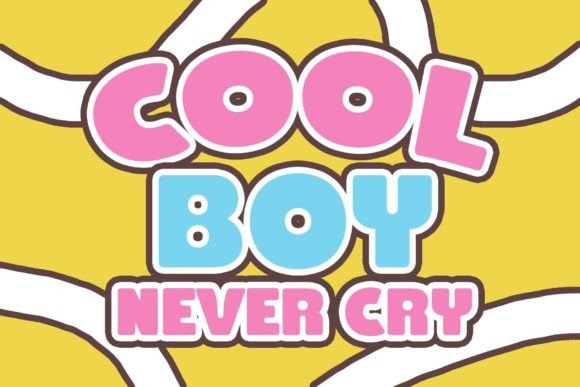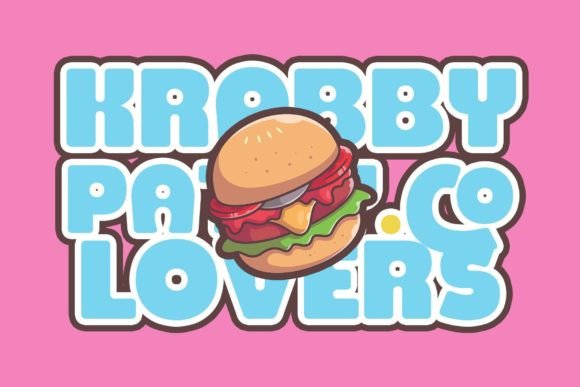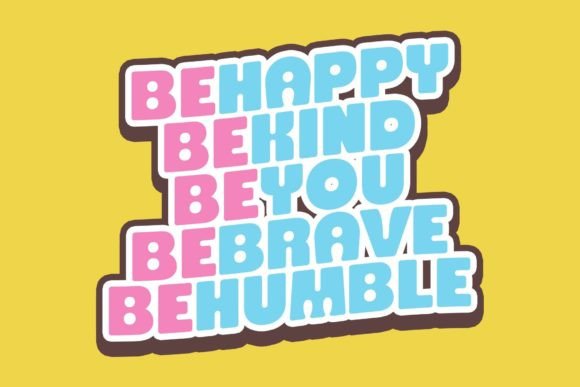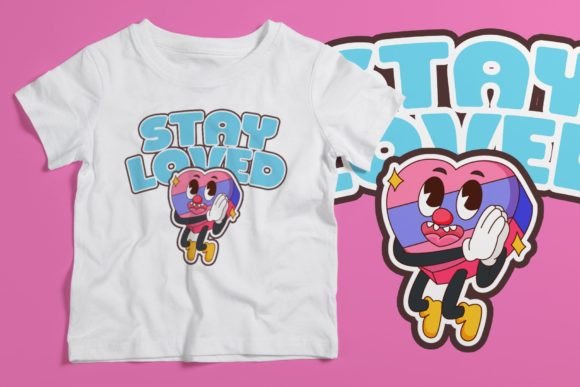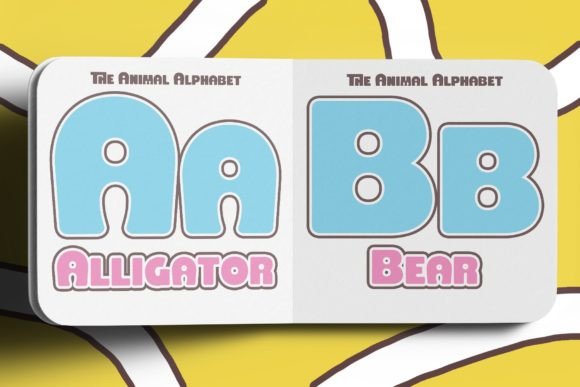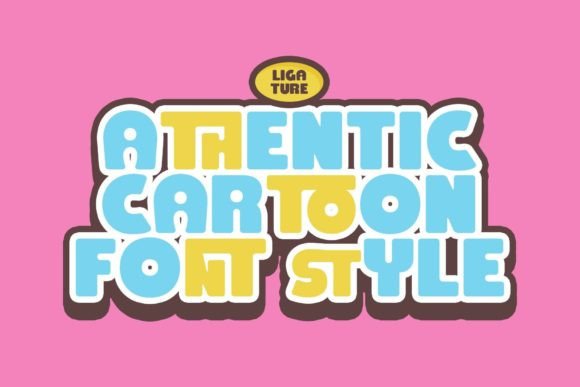
Introduction to Ragnic Font
Have you ever stared at a blank page, trying to come up with the perfect headline for your creative project, only to find yourself lost in a sea of font options? I know I have. But what if I told you that there’s a new font on the block that’s about to make your design life a whole lot easier?
Meet Ragnic Font, a playful and vibrant sans serif font that’s perfect for creating eye-catching headlines and logos. This versatile design resource is not only free to download but also comes with a transparent background, making it easy to incorporate into any design project. With its high-quality, bold lines and rounded edges, Ragnic Font is sure to bring a touch of whimsy and fun to your next creative endeavor.
Key Features of Ragnic Font
- High-quality font design suitable for creative projects and designs.
- Comes with a transparent background, allowing for versatile design applications.
- Unique, modern design aesthetic that sets it apart from other fonts.
Honest Review: Ragnic Font
I recently had the chance to work with the Ragnic Font, and I must say it’s been a pleasant experience. As a designer, I’m always on the lookout for high-quality design resources that can elevate my creative projects.
One of the things that stands out about the Ragnic Font is its sleek and modern design. The font is perfect for those who want a clean and minimalistic look in their designs. The transparent background makes it easy to use in a variety of contexts, from logos to digital products.
Here are some of the things that work well with the Ragnic Font: ✨
- Easy to use with a transparent background
However, I did encounter a few limitations: ⚠️
- The font may not be suitable for those who prefer a more traditional or serif font style
Overall, I’m impressed with the Ragnic Font. It’s a great addition to any designer’s toolkit, and I would definitely recommend it to those looking for a high-quality design resource.
Tips for Getting the Most Out of Ragnic Font
Use the Ragnic Font in a high-quality design project to create a unique and creative look. Experiment with different font sizes and styles to get the most out of the font. Use the font in conjunction with other design resources to create a cohesive and professional look.
The Ragnic Font is a versatile design resource that can be used in a variety of creative projects. Some common use cases include:
- Designing a logo for a business or brand
- Creating a poster or flyer for an event
- Designing a website or social media graphic